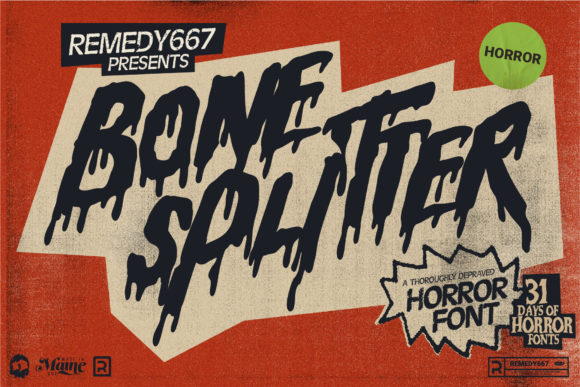
Bone Splitter Font: The Original Bloody Horror Typeface!
Are you looking for a font that will add a touch of horror and death to your project? Look no further than Bone Splitter, the perfect typeface for horror movies, graphic artists, and all who love the undead. This font is designed to bring a sense of eeriness and fear to your project, making it ideal for video game titles, posters, apparel, album artwork, and horror movies.
Signature Bloody Font Style
Bone Splitter features a unique and signature bloody font style that is sure to grab the attention of your customers. The font’s design is bold and eye-catching, making it perfect for projects that need to make a statement. With Bone Splitter, you can create a terrifying design that will leave a lasting impression on your audience.
Endless Design Possibilities
Bone Splitter is a versatile font that can be used for a wide range of projects, including:
- Video game titles: Add a touch of horror to your game’s title and make it stand out.
- Posters: Create eye-catching posters for horror movies, concerts, or events.
- Apparel: Design bold and striking t-shirts, hoodies, or hats that will appeal to horror fans.
- Album artwork: Give your music a dark and eerie feel with Bone Splitter.
- Horror movies: Use Bone Splitter to create terrifying title sequences or promotional materials.
Why Choose Bone Splitter?
So, why choose Bone Splitter over other fonts? Here are just a few benefits:
- Bold and eye-catching design: Bone Splitter is designed to grab attention and make a statement.
- Perfect for horror genre: If you’re working on a project that requires a horror theme, Bone Splitter is the perfect font for you.
- Unique and signature style: Bone Splitter’s bloody font style is unlike any other font out there, making it a great choice for those who want to stand out.
Tips and Tricks for Using Bone Splitter
Here are some tips and tricks for getting the most out of Bone Splitter:
- Experiment with different colors: Try using different colors to create a unique and striking design.
- Play with font sizes: Experiment with different font sizes to create a sense of hierarchy and emphasis.
- Combine with other fonts: Try combining Bone Splitter with other fonts to create a unique and interesting design.